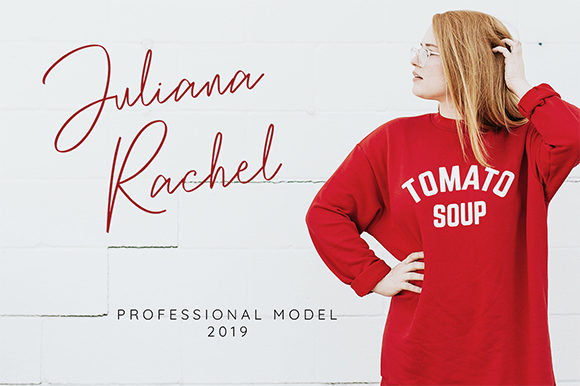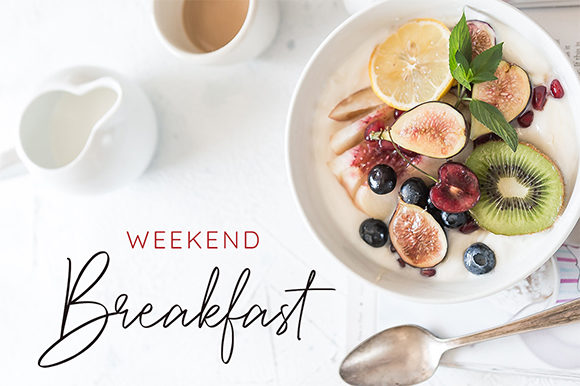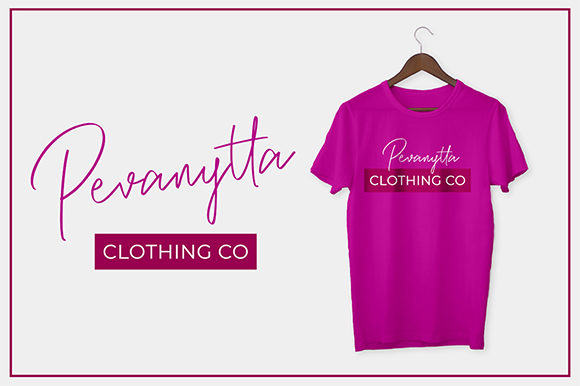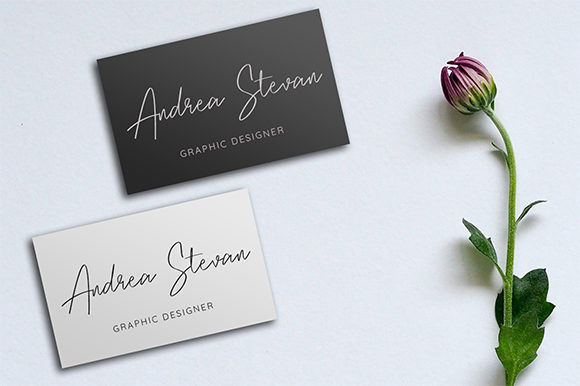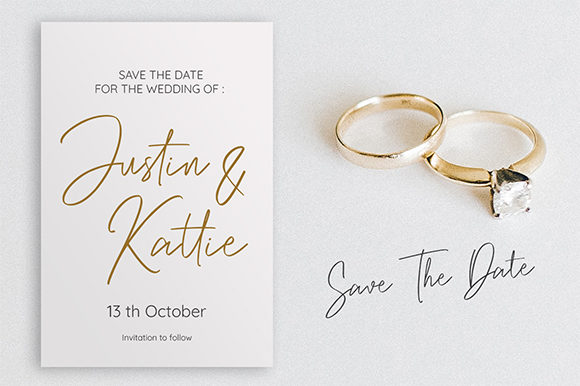
HomeScript FontsPevanytta Script Font Script Fonts Pevanytta Script Font FacebookXPinterestWhatsApp Pevanytta Script Font Poster 2 Pevanytta Script Font Poster 3 Pevanytta Script Font Poster 4 Pevanytta Script Font Poster 5 Pevanytta Script Font Poster 6 About Pevanytta Script Font Pevanytta is a sweet and cool script that easily combines legibility and authenticity! DOWNLOAD ON CREATIVE FABRICAThis font is sold and delivered by Creative Fabrica. Font Canyon may earn a commission if you buy through this link. People also explored Nayla Font Farm Fresh Christmas Font Venetian Canal Duo | Beer Mockup Handmade Farmhouse Font Wintersmiles Font New Forum Font Endossement Font Cindy Julia Font Honey Buddy Font 286 0 TagsPevanytta Script Font Previous articleBelsmont FontNext articleChristmas Morning Font LEAVE A REPLY Cancel reply Comment: Please enter your comment! Name:* Please enter your name here Email:* You have entered an incorrect email address! Please enter your email address here Website: Save my name, email, and website in this browser for the next time I comment. Personal Use Free Salmoni Personal Use Free Read more about this font Monogram Veg Personal Use Free Read more about this font Diland Personal Use Free Read more about this font Happy Garden Personal Use Free Read more about this font BLOG How to Install and Use Fonts on Windows, macOS, and Web Projects How to Install and Use Fonts on Windows, macOS, and Web Projects Fonts are a crucial part of design and branding. Whether you’re designing a... Transform Your Website: Elevate Your Typography with 7 Best Web Font Generators Best Fonts for T-Shirt Design – Top 2025 Picks 5 Fonts That Will Dominate Design Trends in 2026